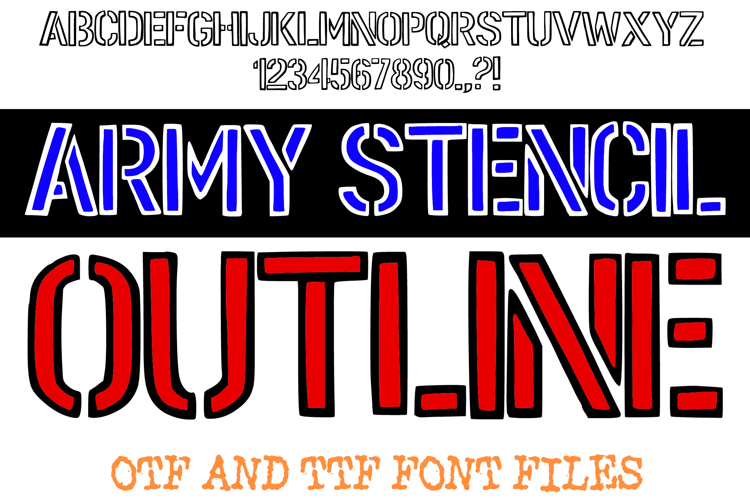
Army Stencil Outline Lettering ABC Font Military Typeface
Army Stencil Outline Font is a bold and rugged military-style typeface with a distinctive outlined stencil design. Inspired by authentic army lettering, tactical gear, and industrial stencils, this font delivers a strong, disciplined, and modern aesthetic perfect for logos, packaging, posters, apparel, and print designs.
The outlined stencil cuts and clean geometric structure make this font stand out in both digital and print projects. Whether you’re working on military branding, patriotic merchandise, adventure sports, or urban streetwear, this font captures the essence of strength, order, and bold design.